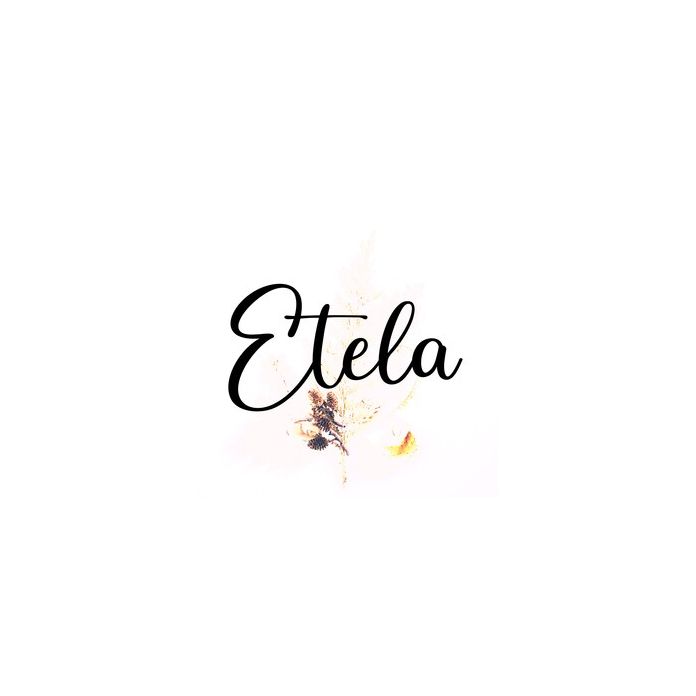
The Etela font with straight and neat strokes is an understated font, of course this is very unique and different from the usual scripts, because this is an original and beautiful font to look at. Now feel free to use them for New Year projects, products, crafts, invitations and personalization. Includes alphabet, numbers, and punctuation.